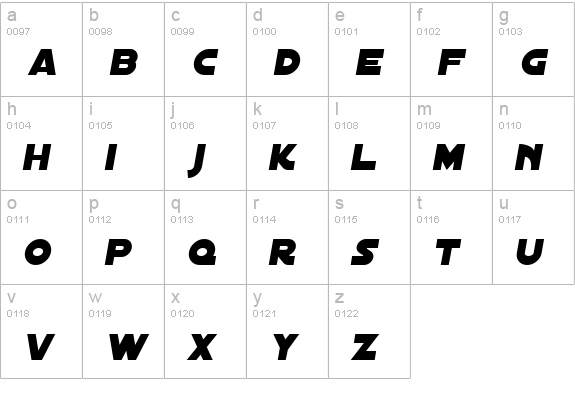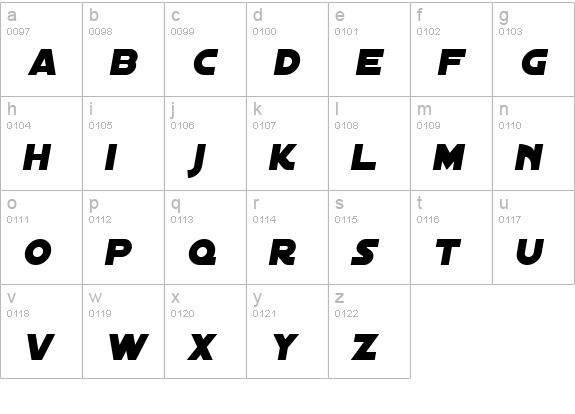
Distant Galaxy Italic is a distinctive, italic variant in the Distant typeface family \xE2\x80\x94 well suited to design and typography projects.
Distant Galaxy Italic is a stunning and futuristic font that will transport your designs to distant galaxies and beyond. With its sleek and elegant italic style, this font exudes a sense of mystery and sophistication. Its unique design features sharp angles and flowing curves, creating a harmonious balance between modernity and otherworldly charm. Whether you are working on a sci-fi project, a tech startup logo, or a space-themed invitation, Distant Galaxy Italic is the perfect choice to make your text stand out and captivate your audience. This font will add a touch of cosmic magic to any design, making it truly out of this world. Best of all, Distant Galaxy Italic is free to download at FontsMarket.com, allowing you to easily access this exceptional font and incorporate it into your creative projects without any cost. Don't miss out on the opportunity to elevate your designs with this enchanting and captivating font. Download Distant Galaxy Italic today and embark on a journey to the stars!